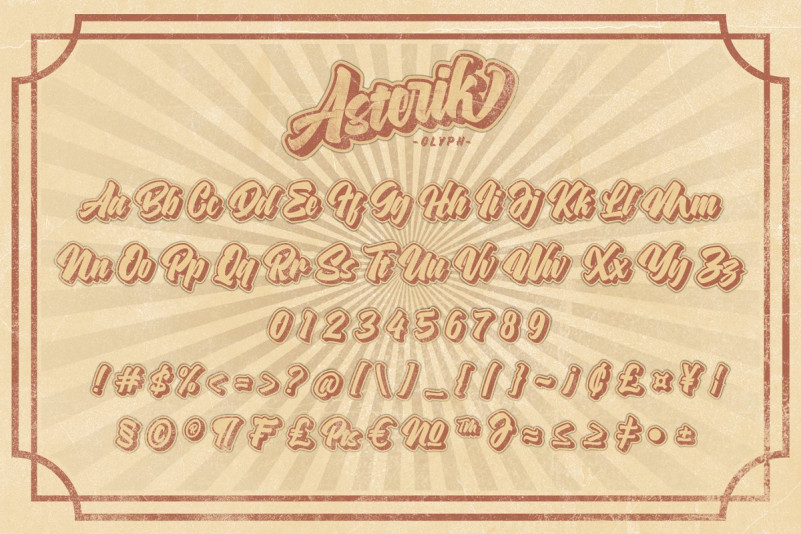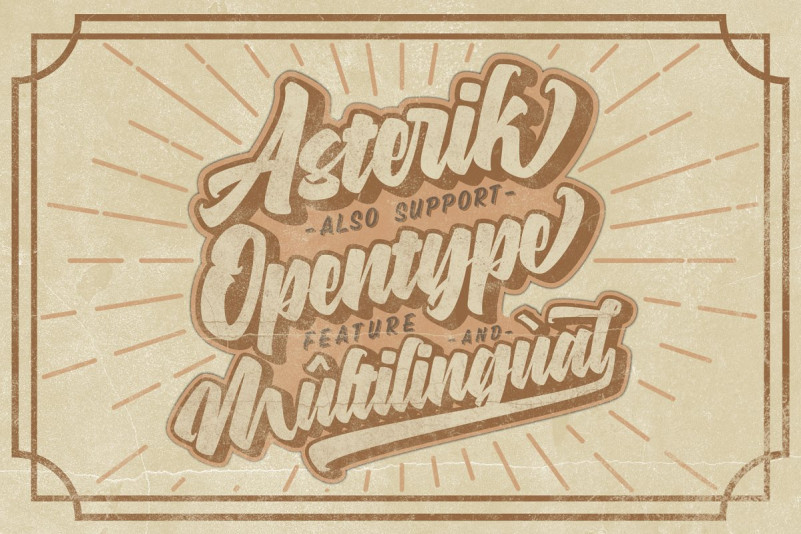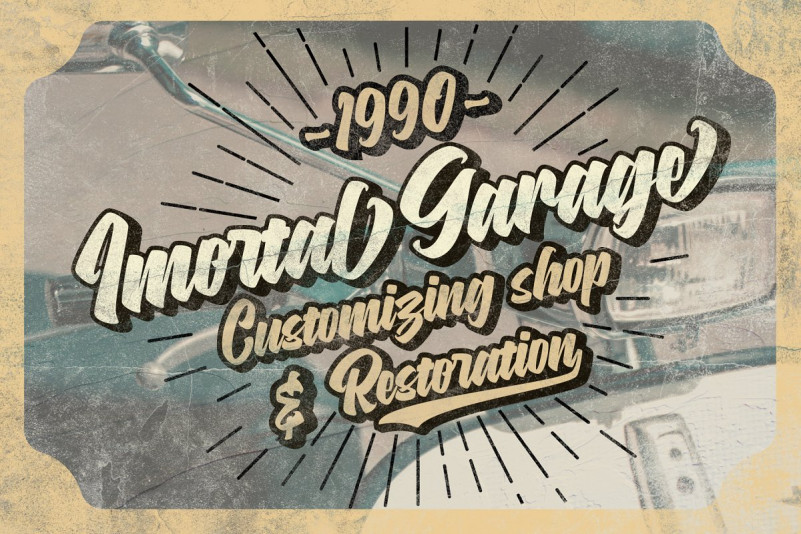
Asterik Layered Script Font
This is a layered bold script with the outline and extrude, inspired by a Retro aesthetic. This font has been inspirited by product retro posters from the 60s-70s. Introducing Asterik Font. It is design and shared by Rochart. Asterik is a bold script and also provided some Sytlistic Alternate, Ligatures, Contextual Alternate and Swashes also support Multilingual and already PUA encoded. This font make with Horizontal/Vertical anchor point, so this font is clean. It will be great for Logotypes, Posters, Digital Lettering Arts, Clean Design, Branding Design, Sign, Merchandise and Social Media Posts.